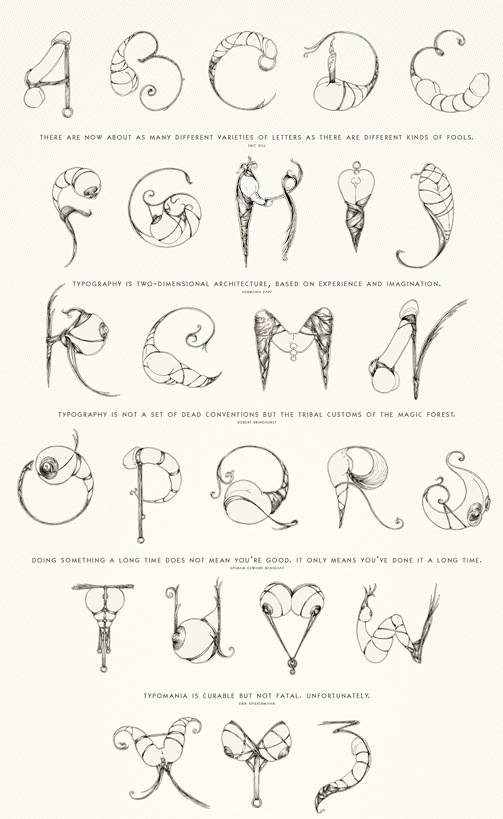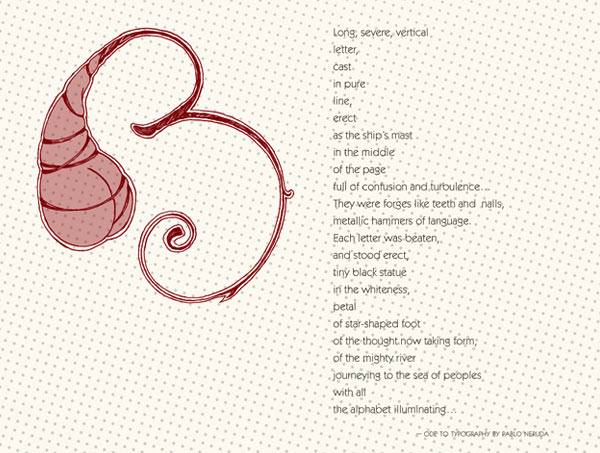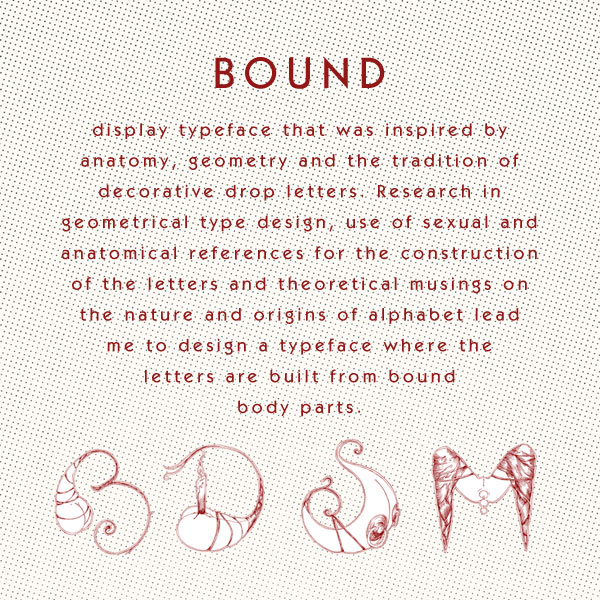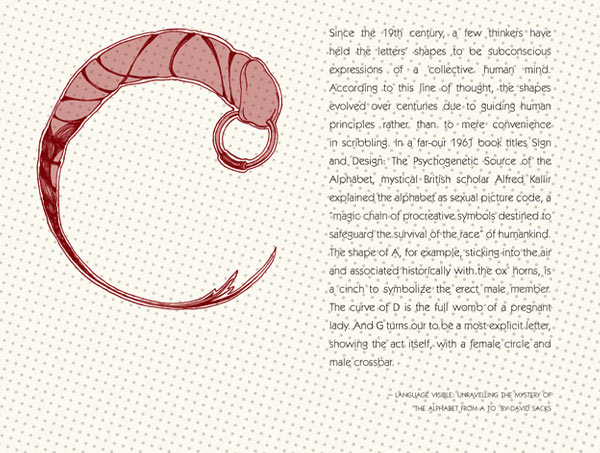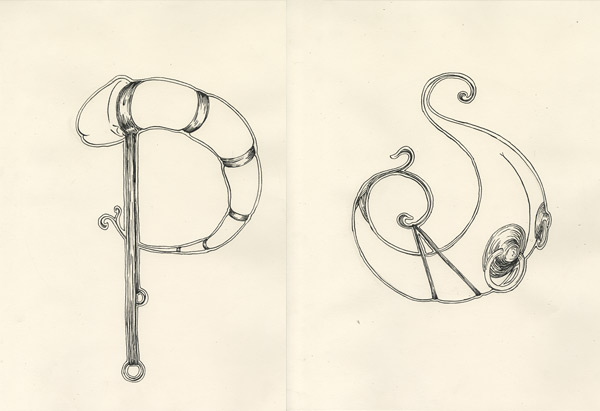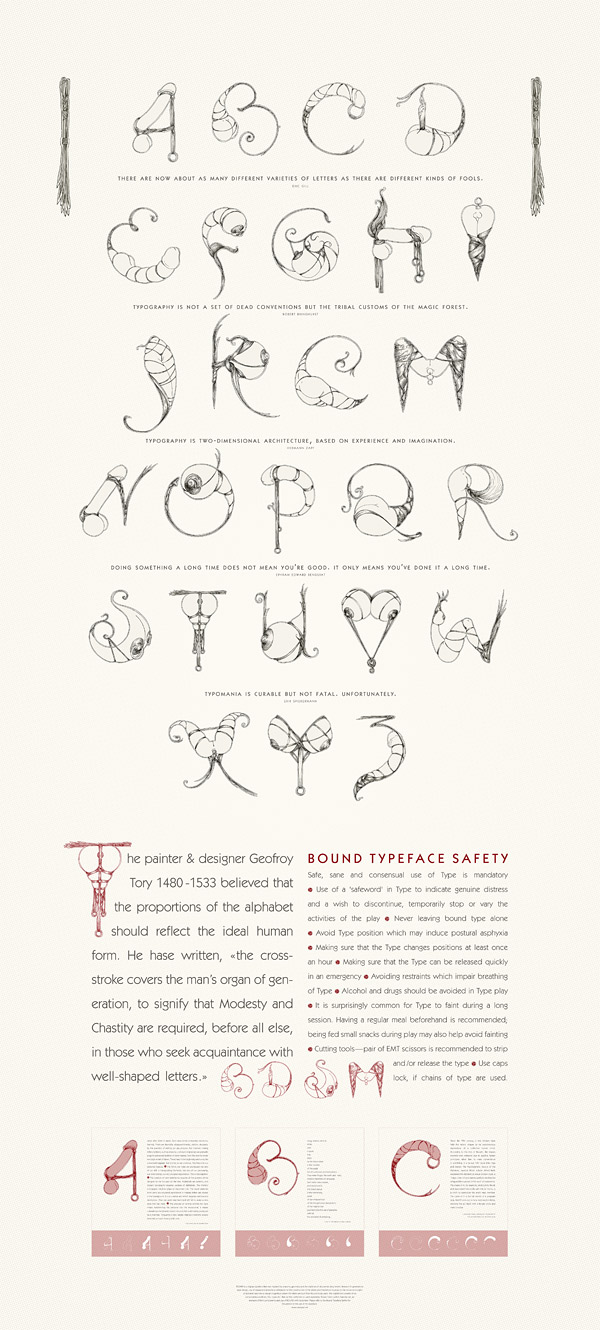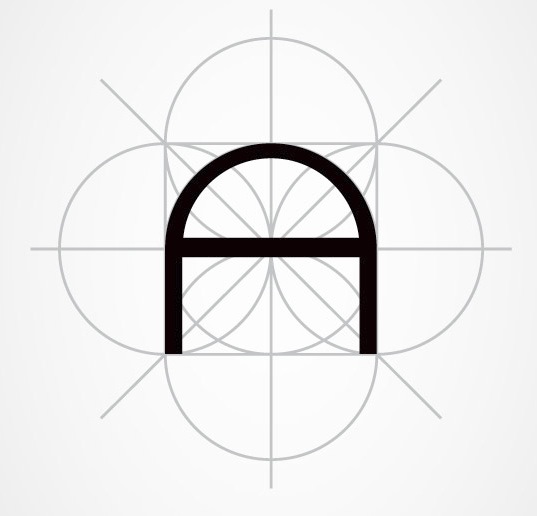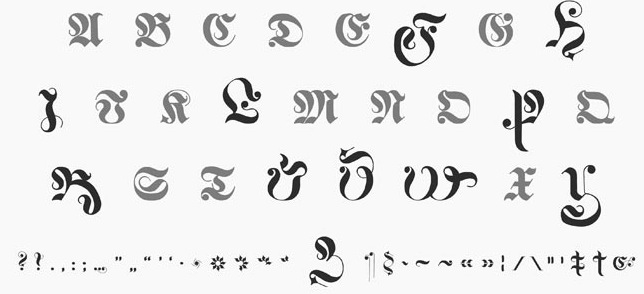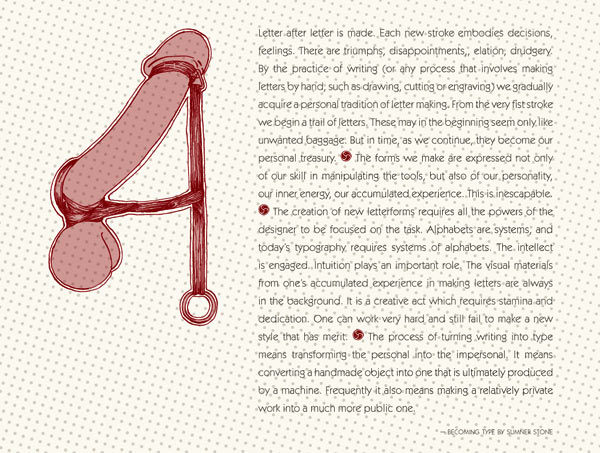
Brivibas Cinitajs
Pseudonym of a Latvian graphic designer and illustrator who does projects for individuals and companies in Central Europe and the USA. He specializes in logos, identity, illustration, publication, drawing, painting, lettering, book arts and web design. With pasages in Bloomington, IN, and Las Cruces, NM, he made these typefaces:
• The BDSM-inspired erotic all caps alphabet Bound (2009).
• Karo (2010). A free geometric font.
• Frank (2010). A blackletter face.
• Ray Five (2010). A font based on letters that were projected onto the walls of a dark room.